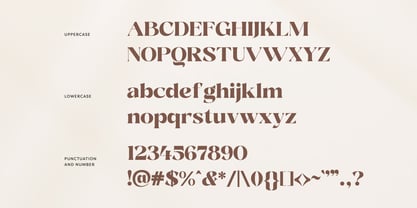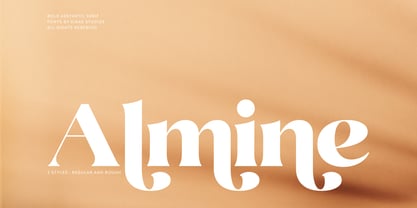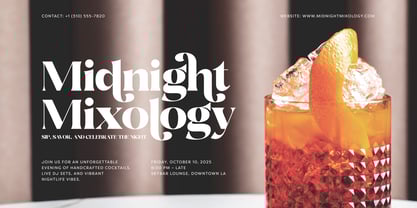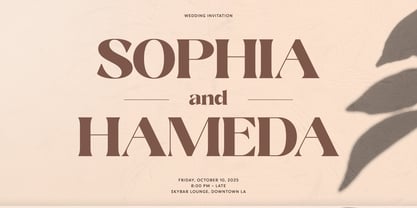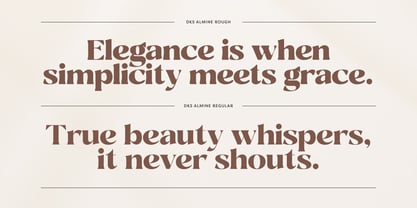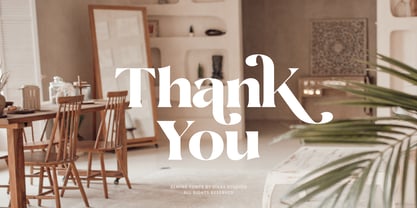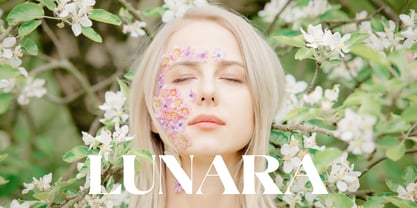
DKS Almine
by Dikas Studio
The DKS Almine Font Family was designed by Andika Setiawan and published by Dikas Studio. DKS Almine contains 2 styles and family package options. More about this family
Almine – A Bold Aesthetic Serif Almine is a bold serif typeface with a refined aesthetic shape that combines classic elegance with a touch of retro charm. Its strong contrast and stylish curves make it perfect for headlines, logos, and any design that needs a bold, eye-catching look. The set includes two styles — Regular and Rough — giving you both a clean and hand-drawn touch. Alternate characters are included to add more expressiveness and creative freedom in display use. Inspired by retro typography, Almine beautifully blends aesthetic flair with timeless vintage appeal.
Designers: Andika Setiawan
Foundry: Dikas Studio